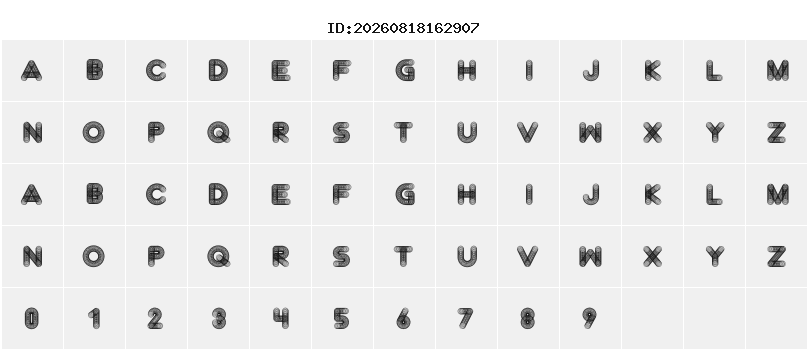
Slinkster v9 Preview
• Font Name: Slinkster v9
• Full Font Name: Slinkster v9 Regular
• Designer: Will Ryan
• Manufacturer: Will Ryan
About Slinkster v9.ttf
Slinkster v9.ttf is a modern, elegant sans-serif font designed for ultimate readability and visual harmony. Perfect for branding, headlines, web design, and print materials.